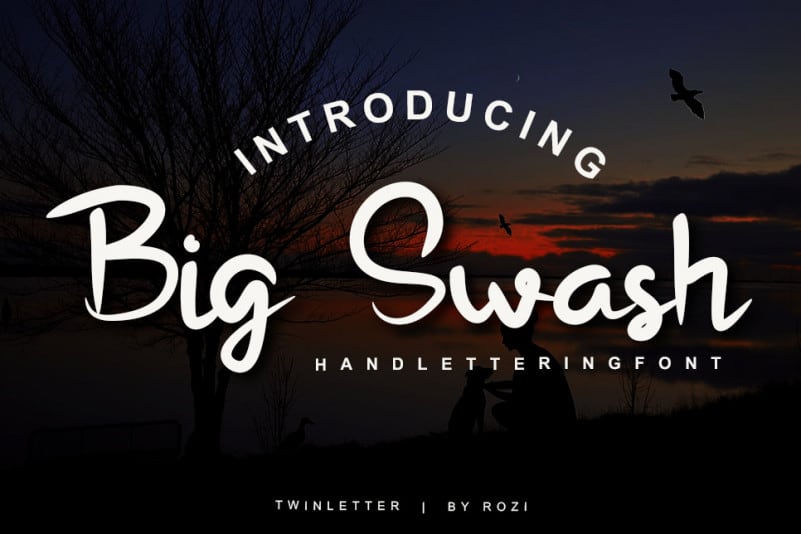
Big Swash Script Font
Introducing Big Swash Script Font with subtle shapes and upright calligraphy styles. Very useful for making logos, signatures or digital signatures for your business cards or personal brands. It’s also suitable for cosmetic posters, fashion magazines, book covers, movie titles or simple quote designs. with Stylistic Alternates, Swash